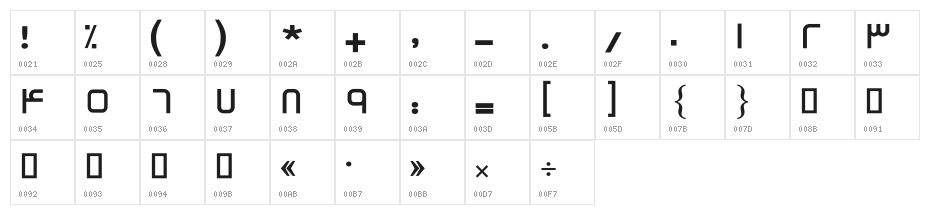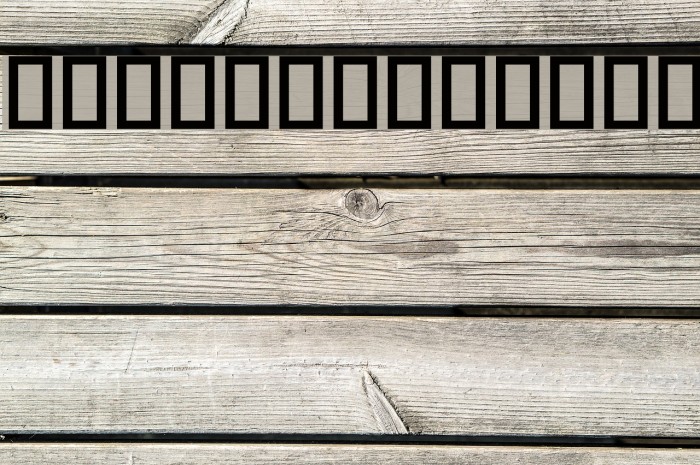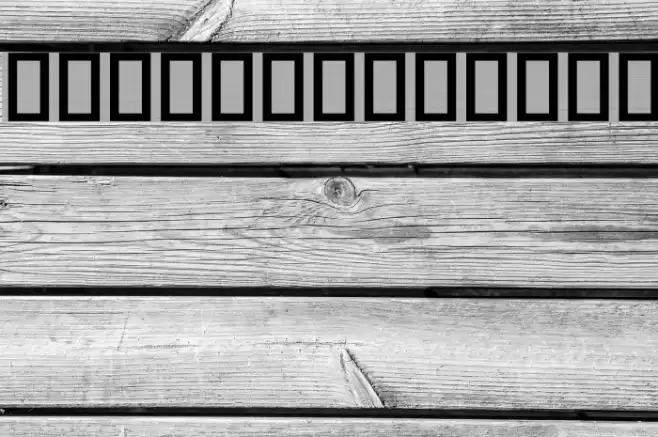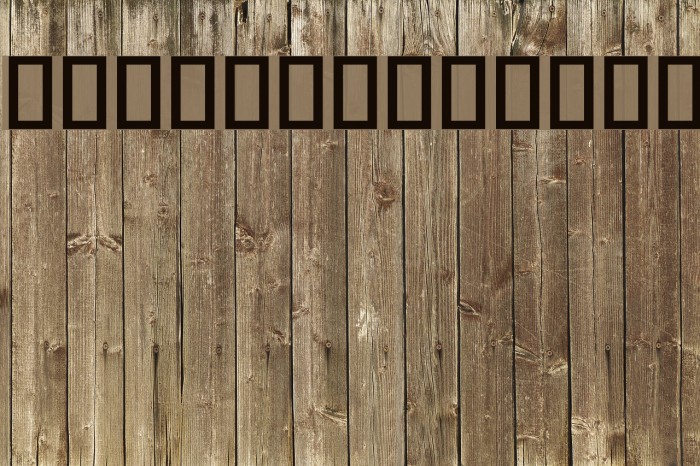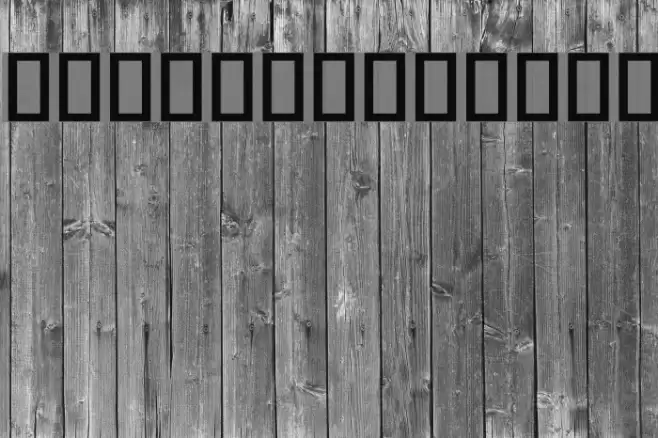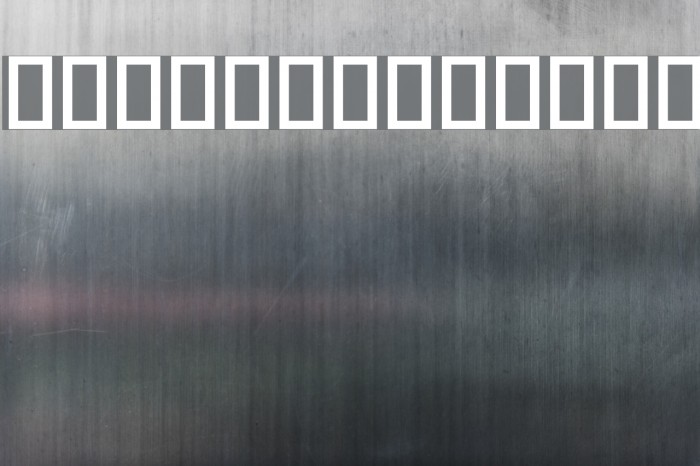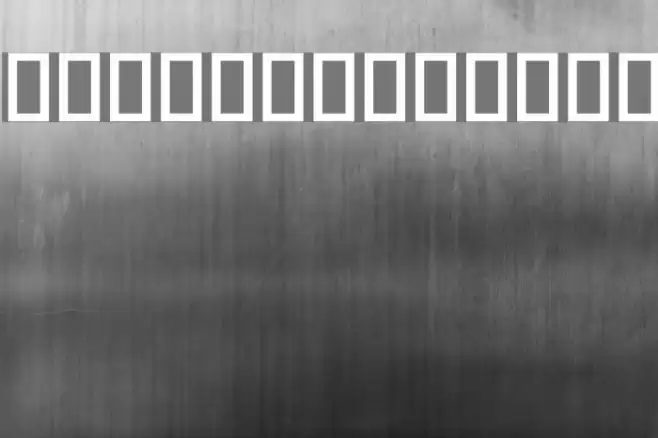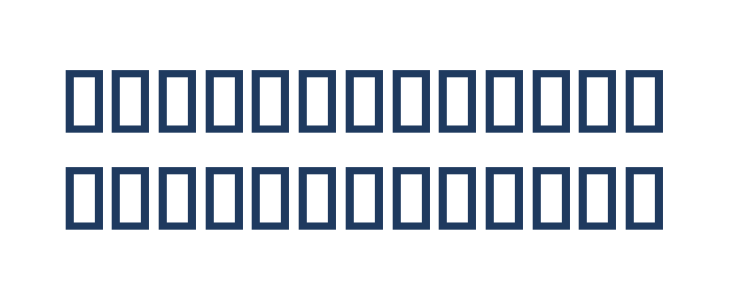
Electron Font
Electron Description
This font features a modern, geometric design with a futuristic feel. The characters are constructed with clean, straight lines and sharp angles, giving it a technical and digital appearance. The uniformity in stroke width across all characters contributes to a cohesive and structured look. The uppercase and lowercase letters maintain a consistent height, enhancing readability and creating a balanced visual flow. The numerals and special characters are designed to match the overall aesthetic, ensuring seamless integration in various contexts. This font is ideal for projects that require a contemporary and innovative touch.
| Proposed Projects | Ideal for tech branding, digital interfaces, video game design, and futuristic-themed projects. |